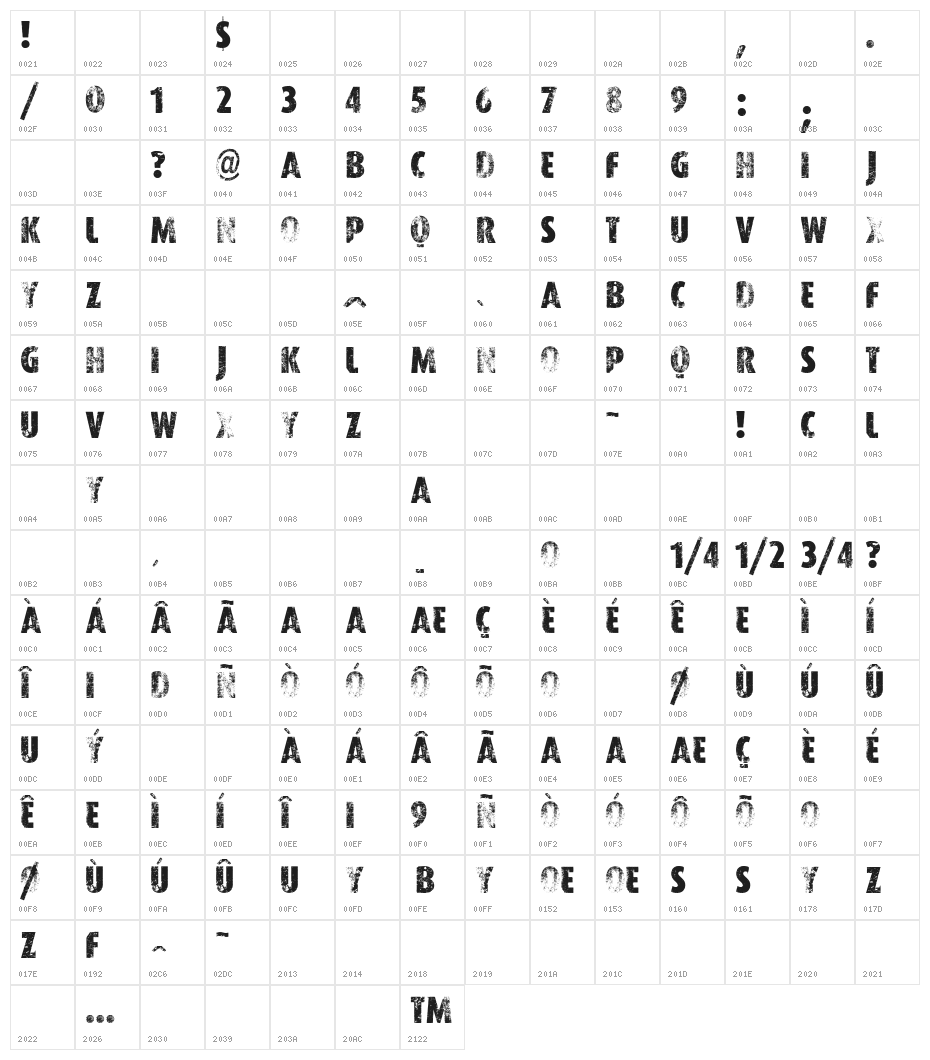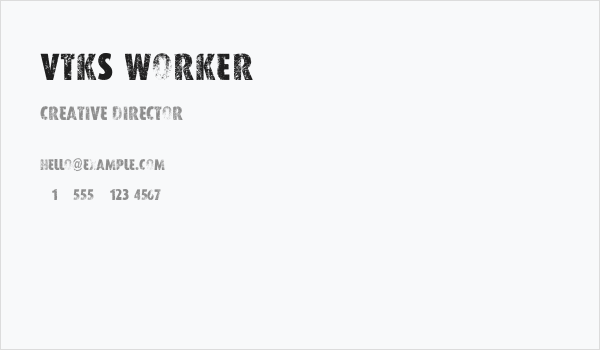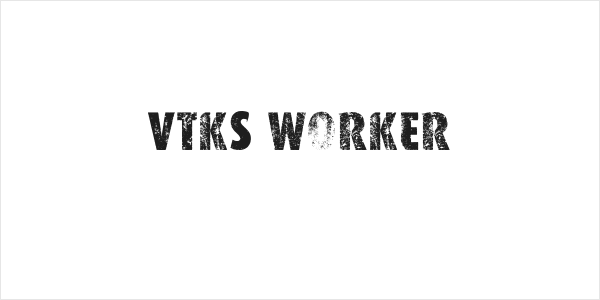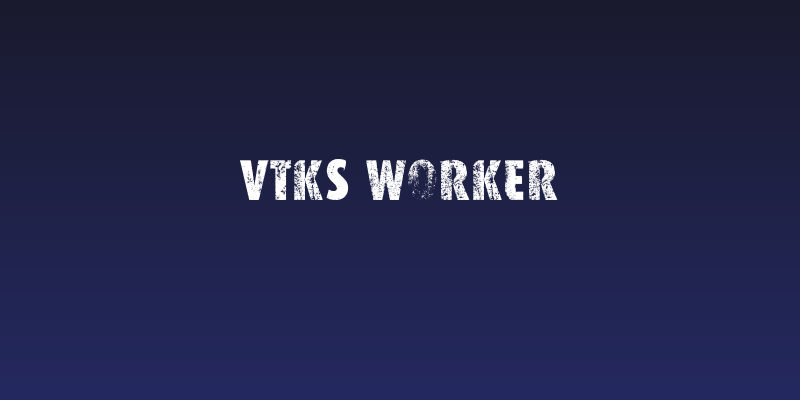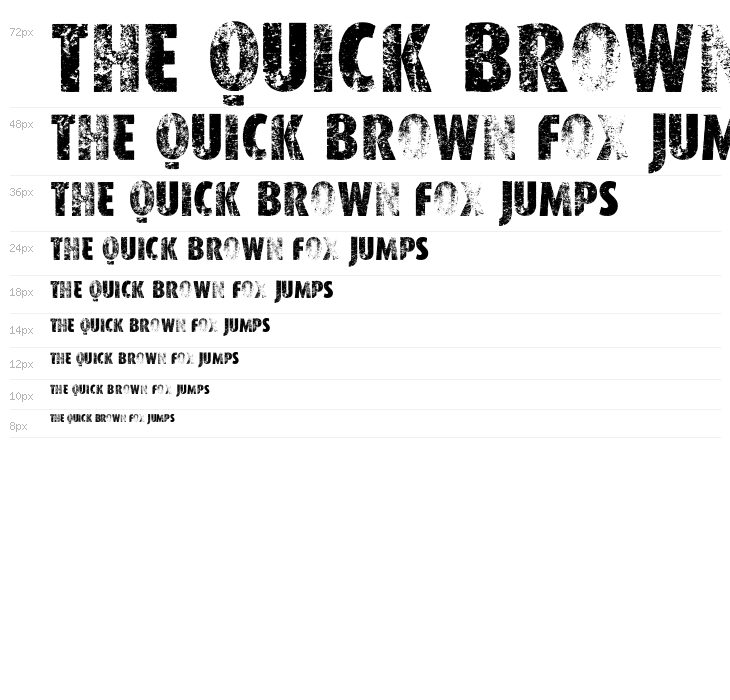
VTKS WORKER Font
✎ Messy
| النمط العام | Vintage, Industrial |
| مشاريع مقترحة | Ideal for posters, album covers, branding for edgy products, or any design needing a vintage, industrial feel. |